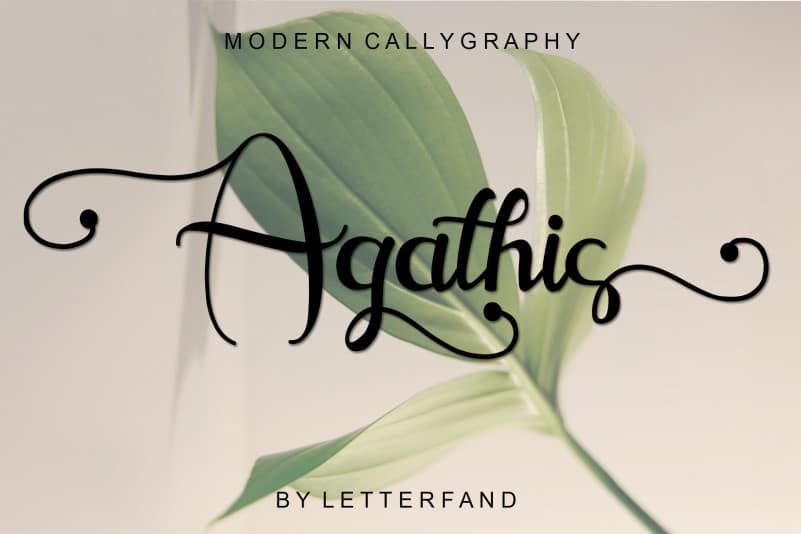
Agathis Calligraphy Font
Agathis Calligraphy Font is a delicate, elegant, and flowing hand-drawn typeface. Made from font designer named Ahmad Afandi. It has beautiful and well-balanced characters and as a result, it matches a wide pool of designs.
Agathis  features a varying baseline, smooth lines, gorgeous glyphs, and stunning alternates. Add it to your most creative ideas and notice how it makes them come alive!